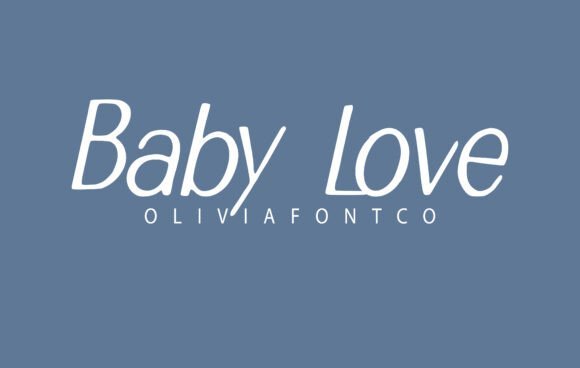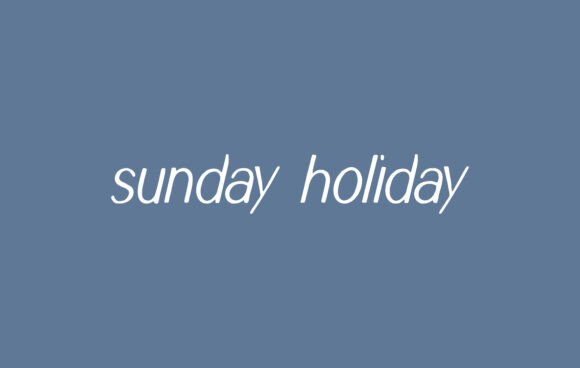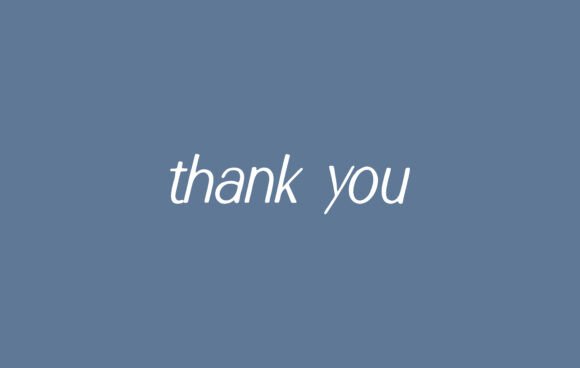
Have you ever stared at a blank page, feeling like your ideas just aren’t coming together? It’s a frustrating moment we’ve all experienced at some point in our creative journeys. But what if you had the perfect tool to help spark your imagination and bring your vision to life? Enter the Baby Love Font, a beautiful, authentic handwritten font designed to add a touch of romance and whimsy to your designs.
Whether you’re a seasoned designer or just starting out, the Baby Love Font is a valuable addition to your toolkit. Its legibility and versatility make it perfect for everything from magazine headlines to social media graphics, branding, and even wedding invitations. With the Baby Love Font, you’ll be able to create stunning designs that capture the hearts of your audience and leave a lasting impression.
Baby Love Font Key Features
- Unique Characteristics: Hand-drawn, cursive font with a baby theme, perfect for nursery decorations, baby products, and children’s clothing
- Font Styles: Includes Regular, Italic, Bold, and Bold Italic styles for versatility and customization
Baby Love Font Review
Overall, the Baby Love Font has a sweet, playful vibe that’s perfect for projects with a nursery or baby theme. ✨ The font’s rounded edges and whimsical feel make it a great choice for illustrations, quotes, and other design elements that need a soft, childlike touch.
- Pros:
- Fun and playful aesthetic
- Wide range of font styles and sizes
- Easy to read, even at small font sizes
However, there are some limitations to consider. ⚠️ The font may not be suitable for projects that require a more professional or sophisticated look. Additionally, some characters may not display correctly in certain fonts or formatting styles.
- Cons:
- May not be suitable for formal or professional projects
- Some character display issues
Overall, I think the Baby Love Font is a great choice for designers looking to add a playful touch to their projects. While it may have some limitations, its unique aesthetic and wide range of font styles make it a valuable addition to any designer’s toolkit.
The Baby Love Font is perfect for creating designs related to babies, children, and family. Some common use cases include:
- Birth announcements and baby shower invitations
- Children’s party decorations and invitations
- Family photo albums and scrapbooks
For the most effective use of the Baby Love Font, use it in combination with pastel colors and cute illustrations to create a whimsical and playful design.
Yes, the Baby Love Font is fully editable, allowing you to customize it to fit your design needs. You can adjust the font size, color, and style to match your design. Additionally, the font includes a range of OpenType features, such as ligatures and swashes, which can be accessed through your design software.